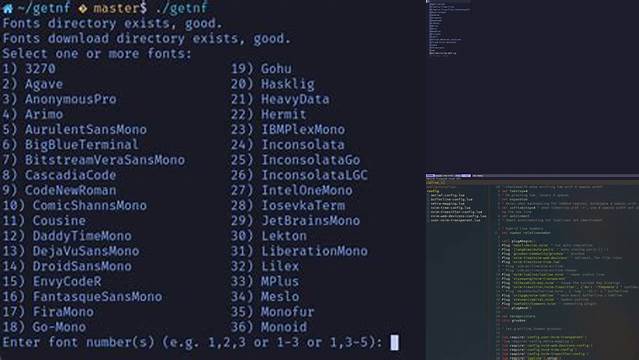
Install Nerd Fonts In Neovim: A Detailed Guide
Hey everyone! If you're diving into the world of Neovim, you've probably heard about Nerd Fonts. These fonts are super cool because they pack a ton of glyphs, icons, and symbols that make your terminal and Neovim setup look fantastic. In this guide, we'll walk you through installing Nerd Fonts so you can take full advantage of Neovim's customization options. Let's get started!
Why Nerd Fonts?
Before we jump into the installation process, let's quickly chat about why Nerd Fonts are so popular. Nerd Fonts are essentially patched fonts that include a massive set of icons from popular icon sets like Font Awesome, Material Design Icons, Devicons, and more. This means you can use these icons in your Neovim statusline, file explorer, and other plugins, making your editor not only more functional but also visually appealing. Imagine having cool icons next to your file names in your file explorer or a sleek statusline that shows Git branch info with a fancy icon – that's the power of Nerd Fonts!
Using Nerd Fonts elevates the Neovim experience by making it more intuitive and visually informative. For instance, plugins like nvim-tree.lua
or nerdtree
become much more effective when you can visually distinguish different file types or states through icons. Similarly, statusline plugins like lualine.nvim
or vim-airline
can display various information, such as Git branch, file encoding, and diagnostics, in a clean and easily understandable manner. The icons act as visual cues, allowing you to quickly grasp the information without having to read through text. Moreover, the aesthetic appeal of a well-configured Neovim setup with Nerd Fonts can significantly enhance your coding environment, making it more enjoyable and productive. The customization options available with Nerd Fonts extend beyond just icons; they also include various symbols and glyphs that can be used to create custom prompts, add visual separators, and more, further tailoring your Neovim interface to your specific needs and preferences. This level of personalization is a key aspect of why many developers choose Neovim, and Nerd Fonts are a crucial component in achieving that perfect setup. So, if you're aiming for a professional, visually appealing, and highly functional Neovim environment, installing Nerd Fonts is definitely a step in the right direction.
- You'll see a list of Nerd Fonts. Each font has different styles (like Regular, Bold, Italic) and variations (like Mono, Windows Compatible). Pick one that tickles your fancy! Popular choices include Fira Code Nerd Font, JetBrains Mono Nerd Font, and Hack Nerd Font.
When choosing a Nerd Font, consider factors such as readability and personal preference. Fonts like Fira Code Nerd Font and JetBrains Mono Nerd Font are known for their excellent readability, which is crucial when you're spending hours coding. The stylistic variations, such as Mono (monospace) fonts, are particularly useful for coding environments as they ensure that each character occupies the same amount of horizontal space, leading to better alignment and visual clarity. Additionally, some fonts offer Windows-compatible versions, which is essential if you're working on a Windows system to avoid potential rendering issues. Think about how the font will look in your terminal and within Neovim itself. Do you prefer a more rounded or a more angular font? Do you want something that looks modern or something more traditional? Your font choice can significantly impact your coding experience, so take your time to explore the available options. Don't hesitate to download a few different fonts and try them out before settling on one. This way, you can ensure that the font not only looks good but also feels comfortable to use for extended periods. Ultimately, the best Nerd Font for you is the one that you find the most visually appealing and comfortable to work with, so experiment and find the perfect match for your Neovim setup.